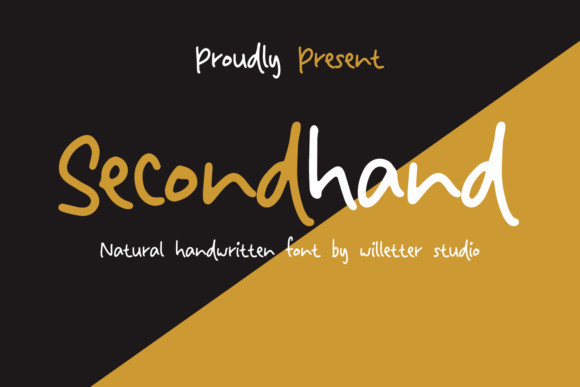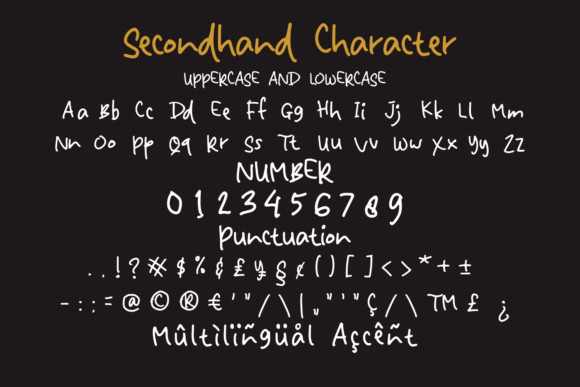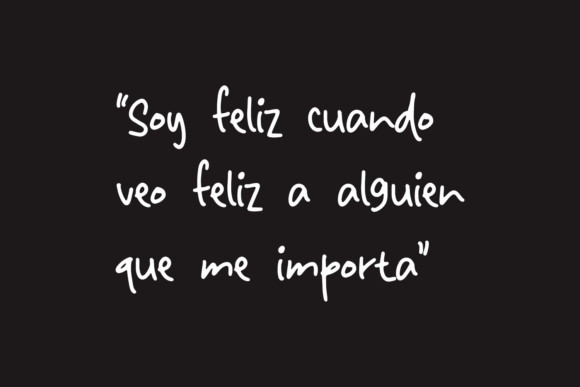
Secondhand Font
Secondhand embodies fun, quirkiness, and authenticity. It features gorgeous and fun characters that will brighten up your crafting projects. It will elevate a wide range of design projects to the highest level, be it branding, headings, invitations, signatures, logos, labels, and much more!